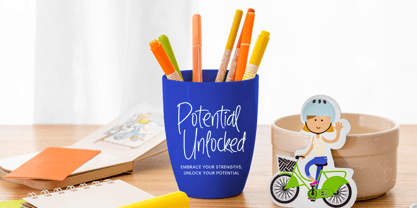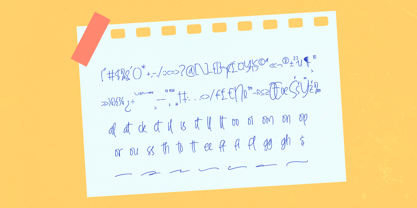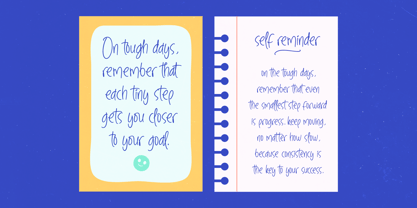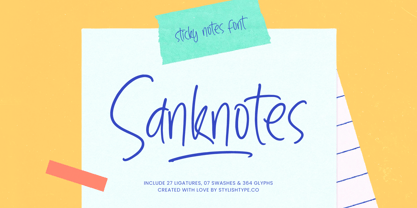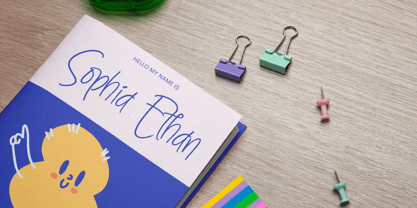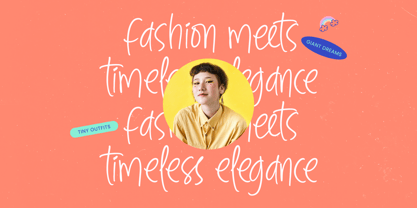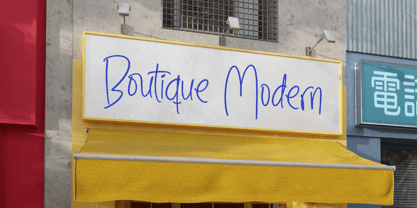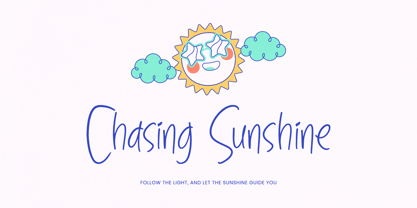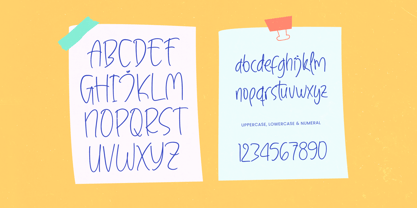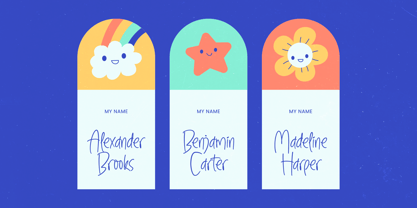
Sanknotes
by Stylishtype Studio
The Sanknotes Font Family was designed by Heru Utama Putra and published by Stylishtype Studio. Sanknotes contains 2 styles and family package options. More about this family
Sanknotes is a charming and playful handwritten font inspired by the natural look of quick notes and everyday handwriting. Designed to mimic the authentic feel of writing on sticky notes, this font brings warmth, friendliness, and personality to any creative project. With its smooth strokes and casual style, Sanknotes is perfect for planners, journals, educational materials, social media graphics, branding, packaging, and creative stationery. The font strikes a perfect balance between readability and a relaxed handwritten aesthetic, making it suitable for both digital and print applications. Packed with a comprehensive set of glyphs, ligatures, and swashes, Sanknotes offers flexibility and creative freedom for designers. Whether you’re creating reminder notes, greeting cards, classroom materials, or lifestyle branding, this font adds a personal and approachable touch.